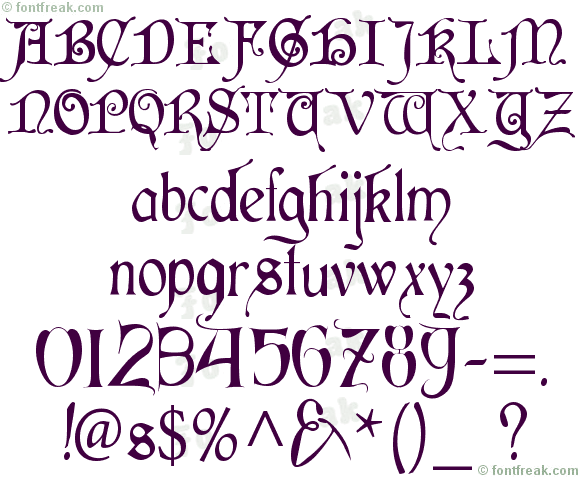
Cardinal Regular
Cardinal Alternate
The Cardinal font by Dieter Steffmann is a charming display typeface that combines elegance with a touch of whimsy. This freeware font, created in 2000, is designed with a unique serif style that showcases its personality through its intricate letterforms and decorative elements. The strokes are characterized by moderate weight and a balanced contrast, making it visually appealing for a variety of applications. The spacing between characters is thoughtfully designed, enhancing readability while maintaining its decorative flair.
Cardinal is ideal for use in wedding invitations, where its graceful features can add a romantic touch. It also makes an excellent choice for movie posters, where the distinct style can capture attention and convey a sense of drama. Restaurant menus can benefit from Cardinal’s elegant aesthetic, presenting dish names in a way that invites diners to explore the menu further. Additionally, this font works wonderfully for branding projects, particularly for those looking to establish a unique, memorable identity.
Targeted towards graphic designers, small business owners, and content creators, Cardinal provides a versatile option that can elevate any project. Its full character set ensures that users can express their creativity without limitations, making it suitable for both personal and commercial use.
What sets Cardinal apart is its ability to blend sophistication with a playful spirit, appealing to a wide range of audiences. Its distinct visual style and the added charm of its decorative elements make it a standout choice for those seeking a font that is both functional and aesthetically pleasing. For anyone interested in enhancing their design projects, Cardinal font free download offers an accessible opportunity to incorporate this unique typeface into their work.